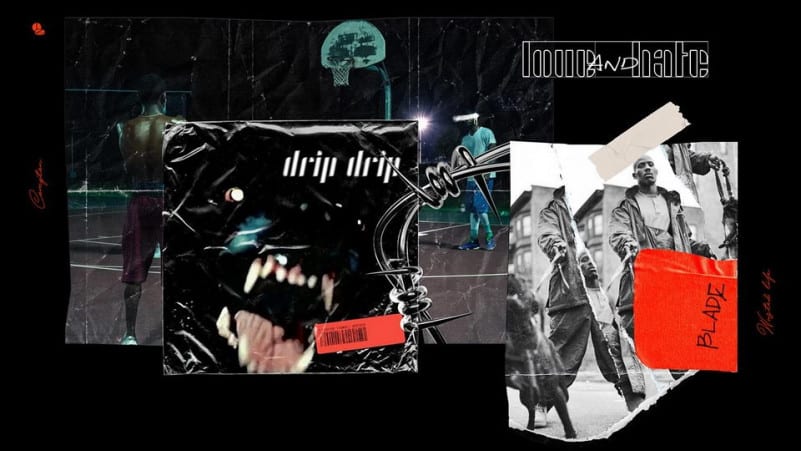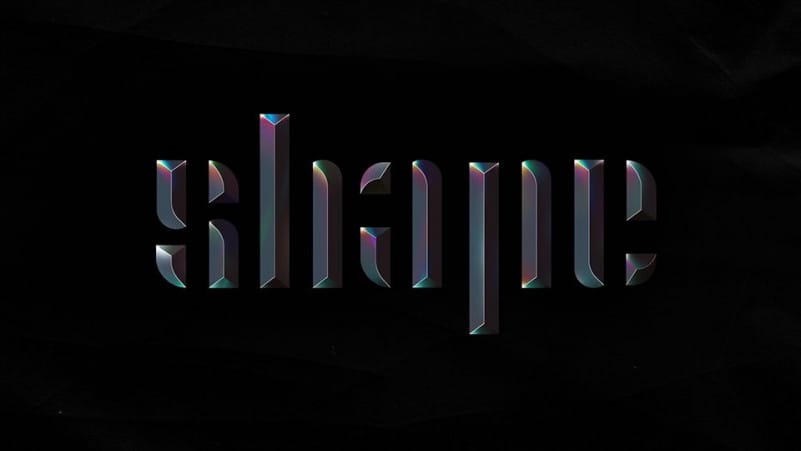
Shape Display Font
Shape Display Font is a stylish and modern display that will make your project more elegant and appeal. This font an experimental typographic project inspired by blades with sharp edges and protruding ends, it adopts a neo-futuristic style.
Shape Display Font can be used in different purposes: logo and branding, scifi poster, product packaging, invitations, advertising, sport apparel, game industry, technology industry, movie and any futuristic typography design projects.